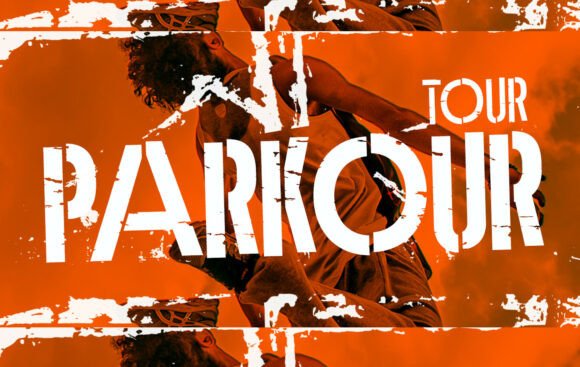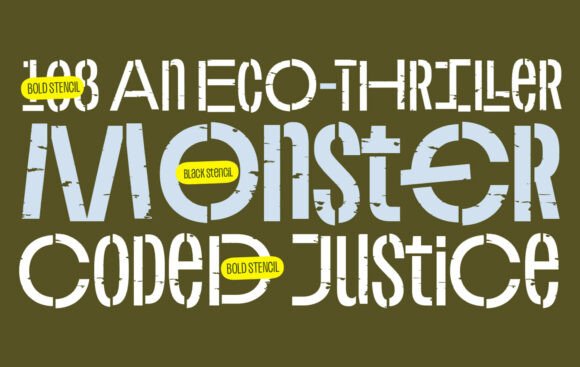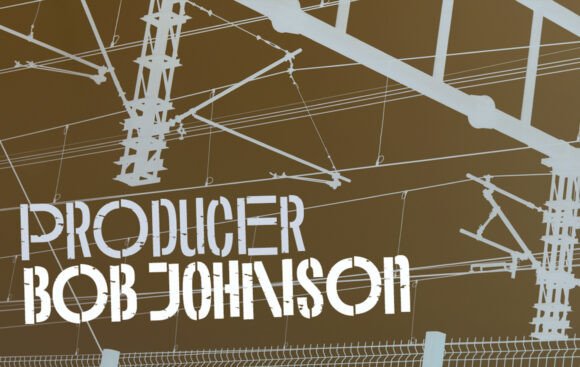
Plex Oxide is a bold, industrial stencil-style font with a weathered, distressed texture that evokes rust, decay, and rebellion.
Featuring four font variations and Cyrillic support, it’s perfect for military-inspired designs, urban posters, video game titles, and underground branding projects This font packs gritty energy and a strong visual punch.